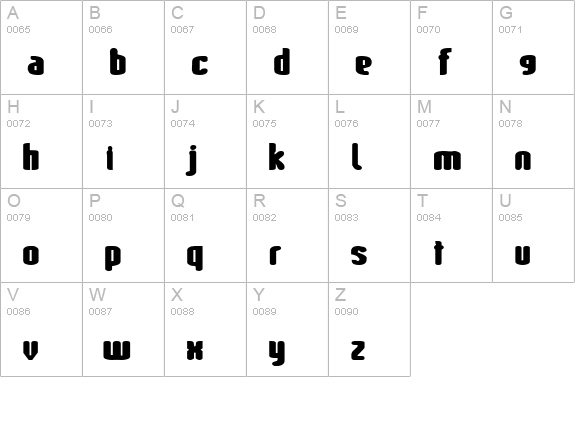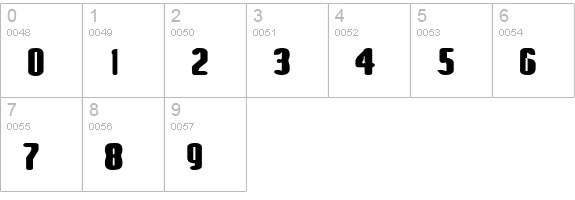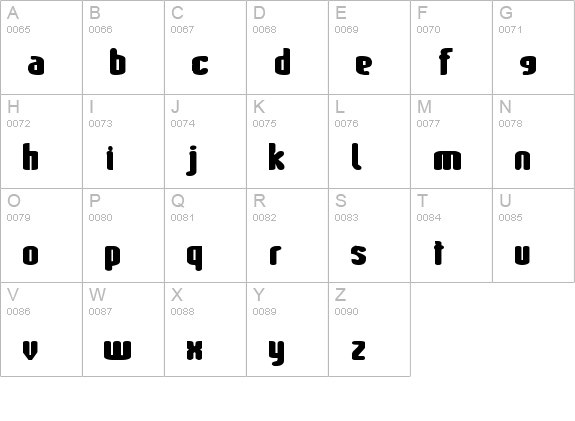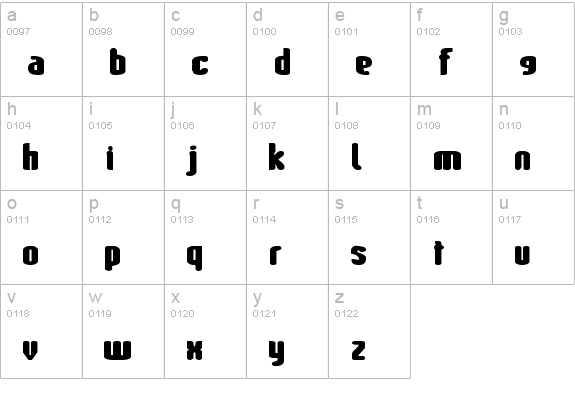
Donut Font Details
Introducing the captivating and whimsical Donut font – a delightful typeface that is sure to add a touch of playfulness to your projects. This unique font features round, doughnut-like shapes that bring a fun and charming vibe to any design. The Donut font is perfect for creating eye-catching headlines, logos, and branding materials that stand out from the crowd. Best of all, the Donut font is available for free download at FontsMarket.com. This means that you can easily access this charming typeface and use it in your personal and commercial projects without any cost. Whether you're working on a creative poster, a festive invitation, or a fun social media graphic, the Donut font is a versatile and exciting choice that will surely make your designs pop. Don't miss out on this fantastic opportunity to add a deliciously sweet touch to your work with the free Donut font from FontsMarket.com!